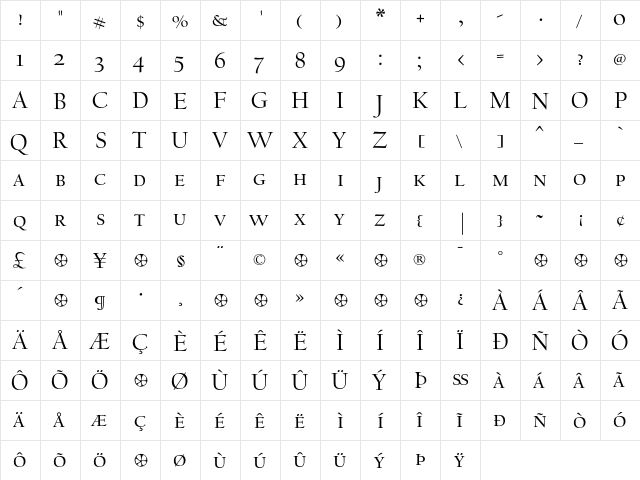
CalifornianMiddle RomanExpert
Design Context for CalifornianMiddle Typeface
CalifornianMiddle is a composed and adaptable typeface that performs quietly and consistently across a wide range of design contexts.